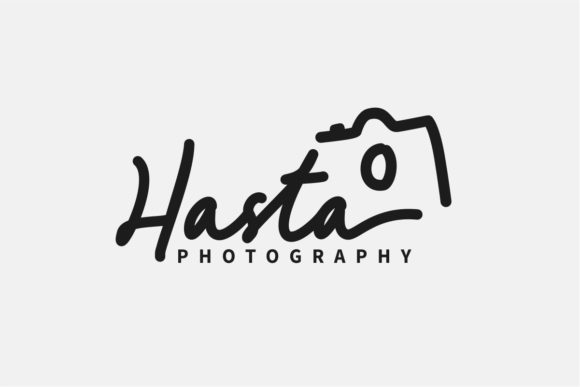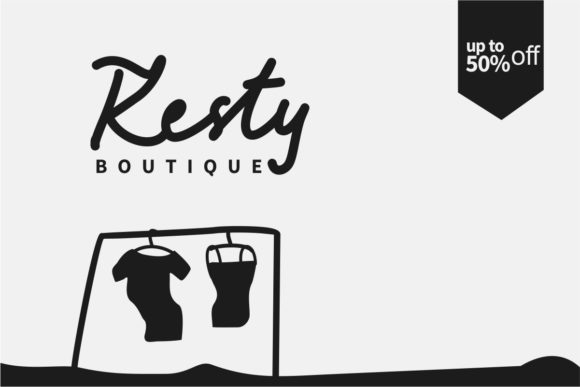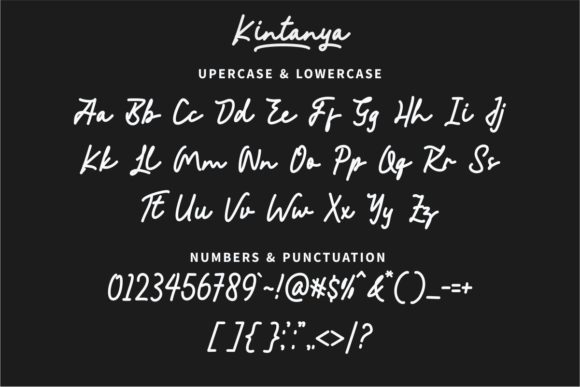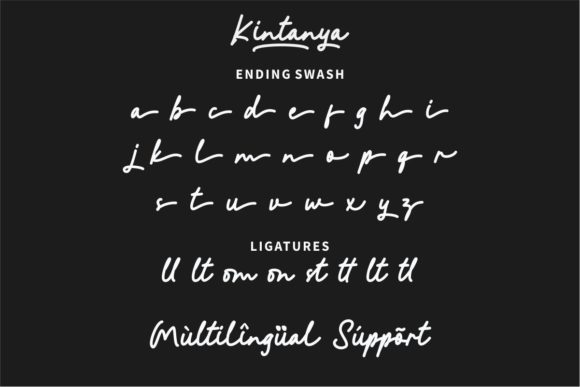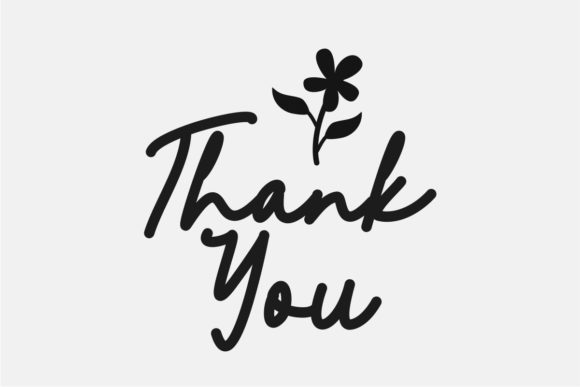
Introduction to Kintanya Font
Kintanya is a unique and elegant handwritten font.
It looks beautiful on a variety of designs requiring a personalized style, such as wedding invitations, thank you cards, logos and so on Kintanya is PUA encoded which means you can access all of the glyphs and swashes with ease.
Key Features of Kintanya Font
Why Choose Kintanya Font?
Kintanya Font offers exceptional quality and versatility, making it a valuable addition to your design toolkit. Whether you’re creating for personal projects or commercial use, Kintanya Font delivers professional results.